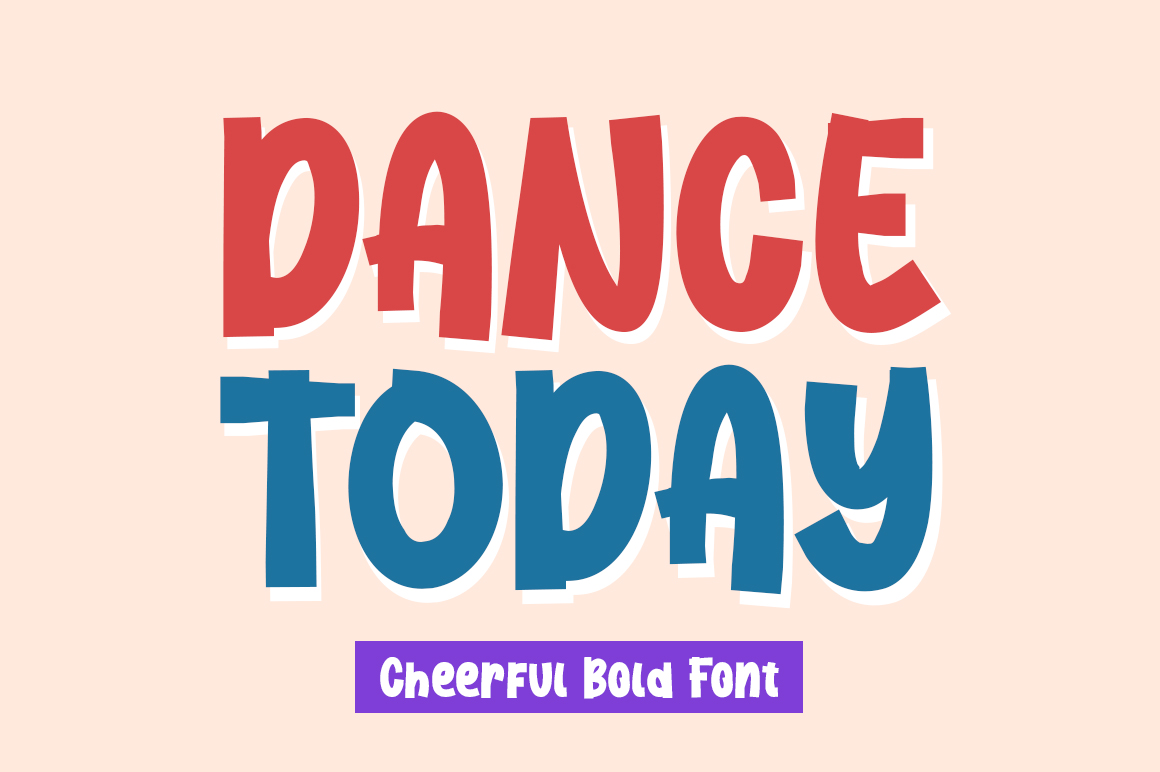
Dance Today Font
Dance Today Display Font
It’s a sweet and cool display font that will add a unique style to your next design project! This font has a bold and cheerful character, a fun unique character suitable for use in various design projects.
This font is suitable for use on packaging design, comic, children, t-shirt designs, logos, book, quotes, advertising, social media post, birthday invitations, and branding.